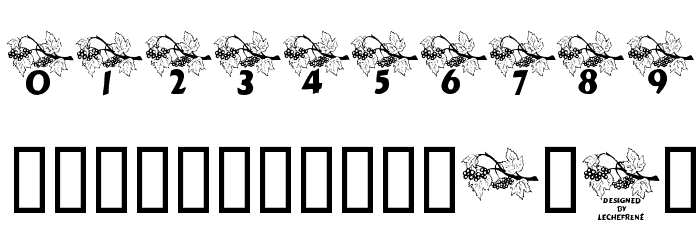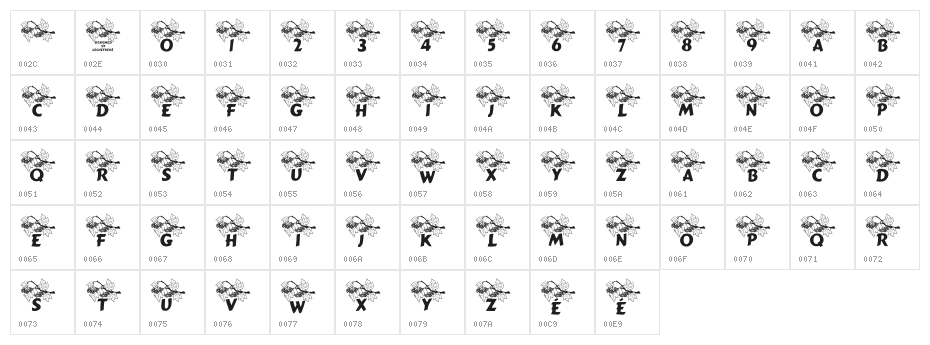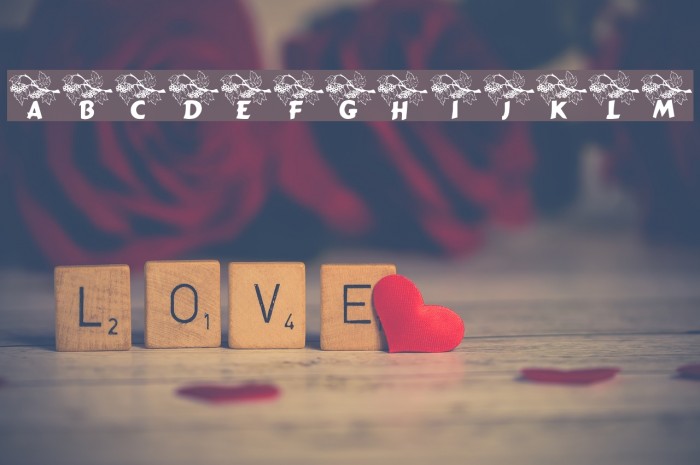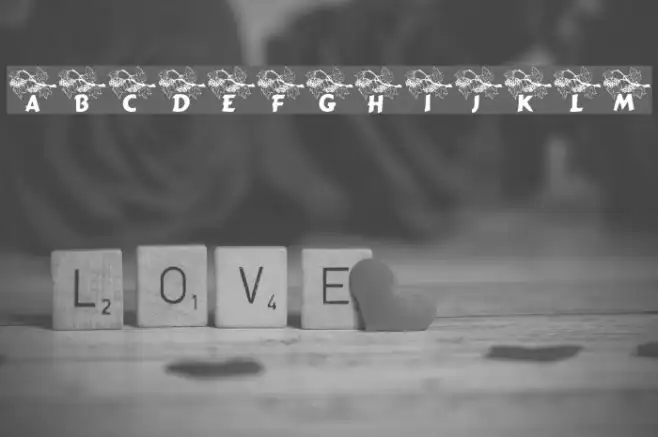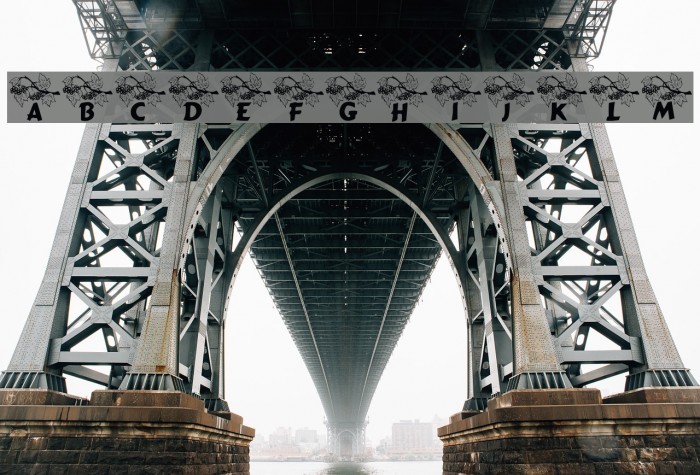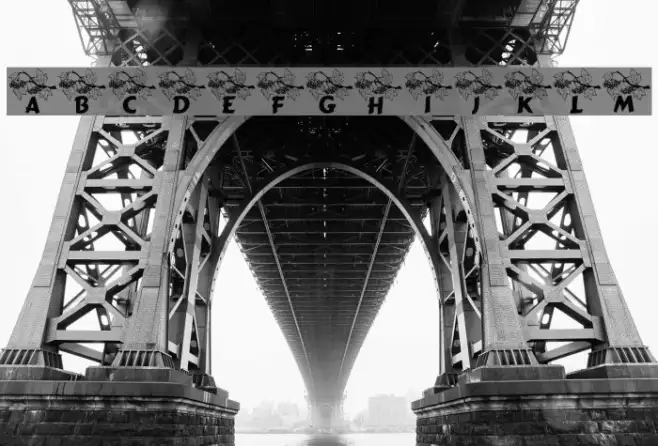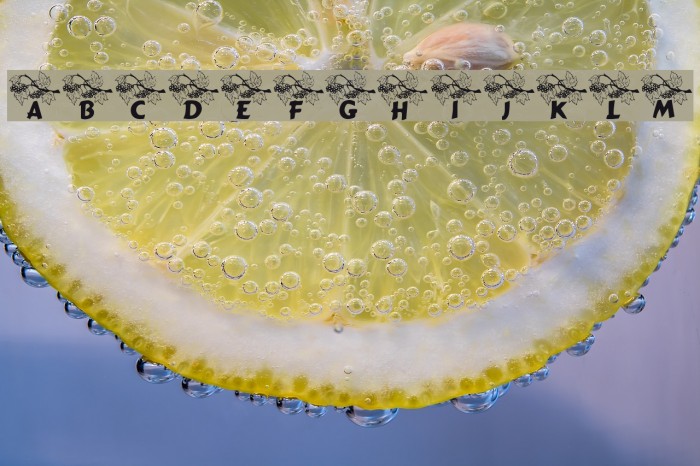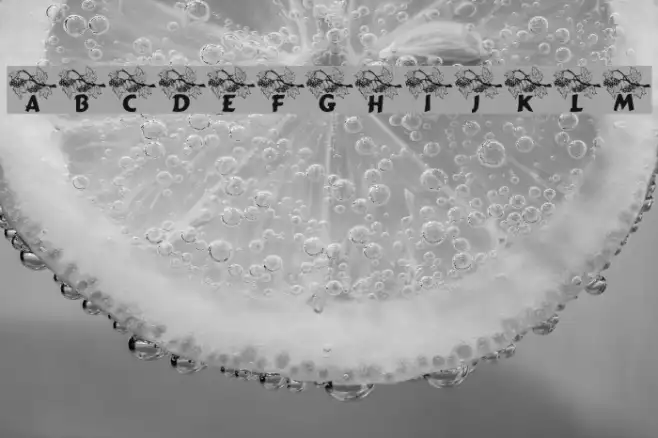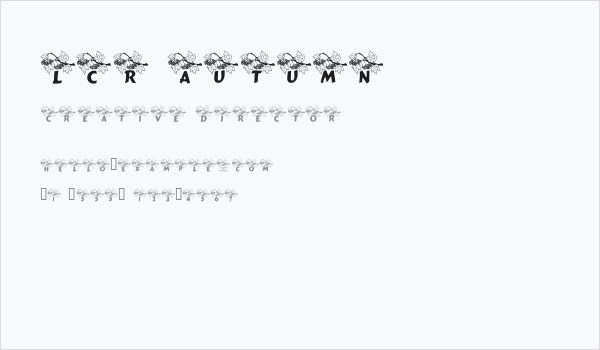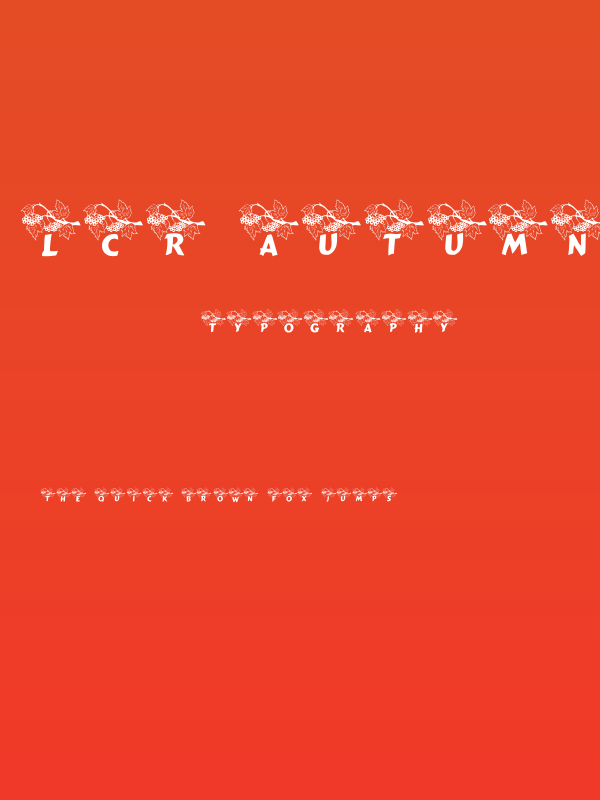
LCR Autumn Font
LCR Autumn Description
This decorative font features a unique design where each character is adorned with intricate autumn-themed foliage, creating an elegant and artistic appearance. The letters are bold and slightly condensed, with a consistent width that maintains readability despite the elaborate embellishments. The foliage adds a touch of nature and whimsy, making it ideal for projects that require a seasonal or organic feel. The font includes uppercase letters, numbers, and a selection of special characters, all unified by the decorative leaf motif. The overall style is both modern and vintage, combining classic letterforms with contemporary decorative elements.